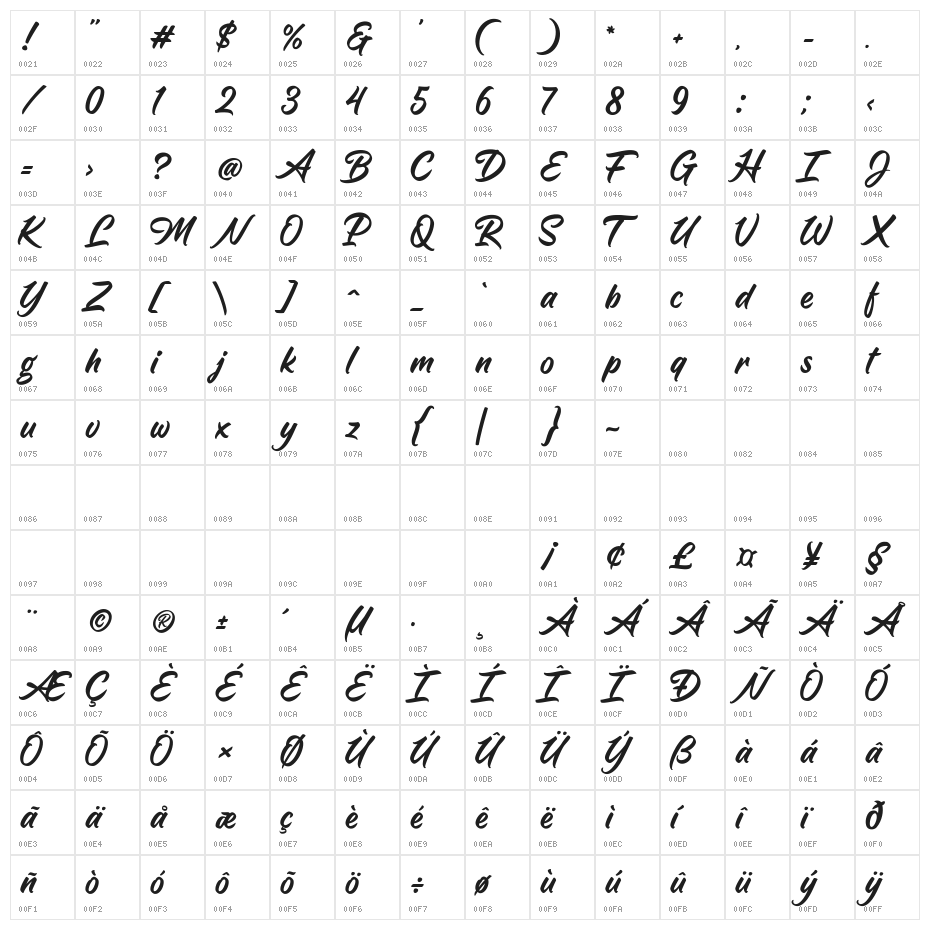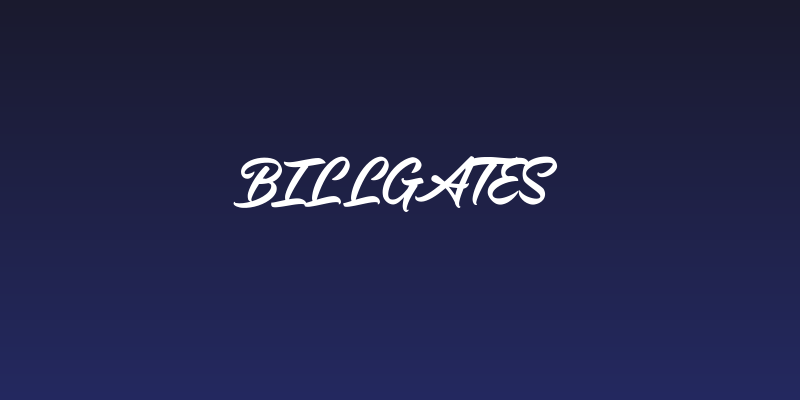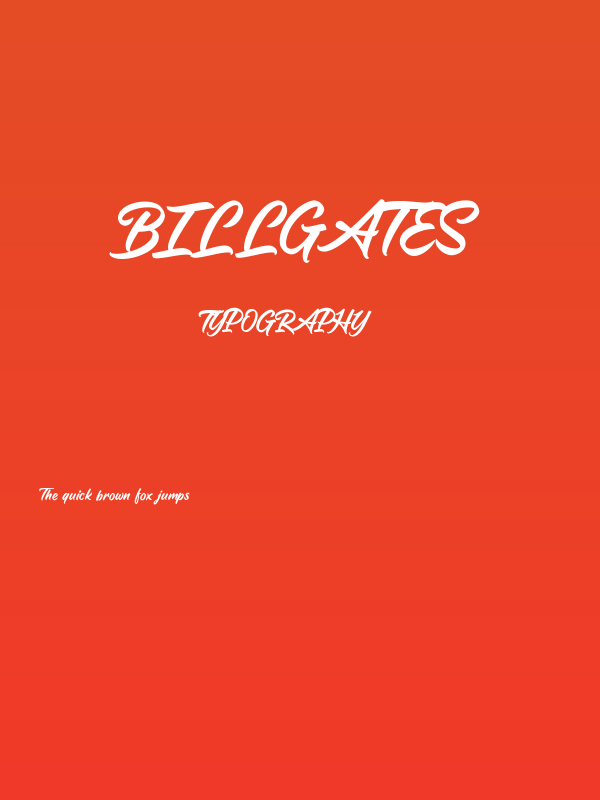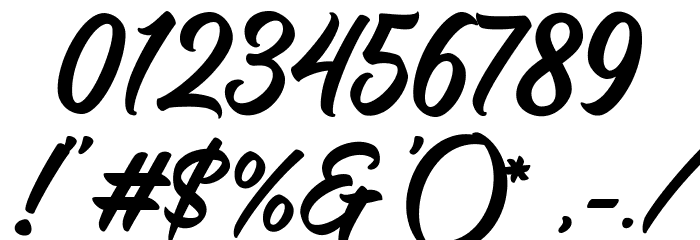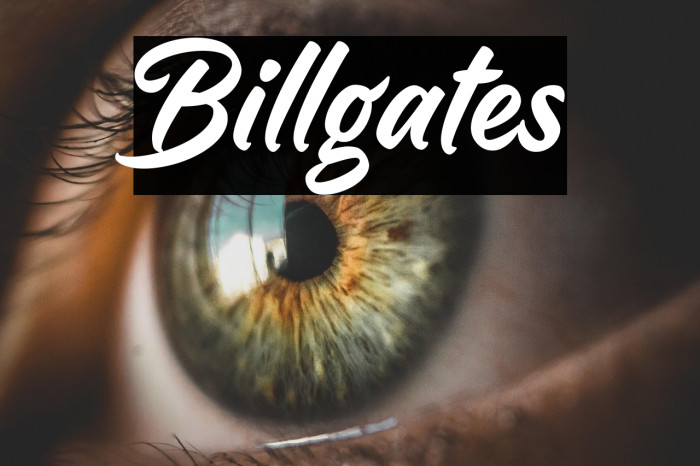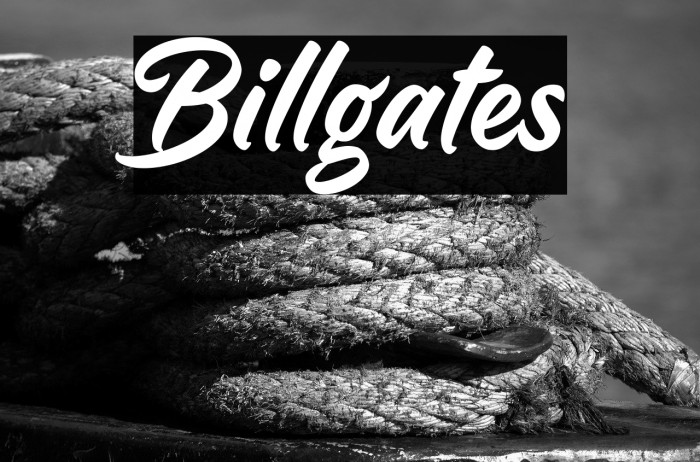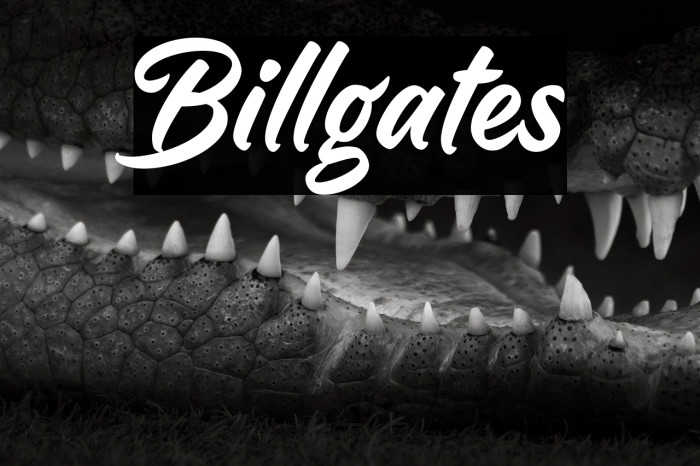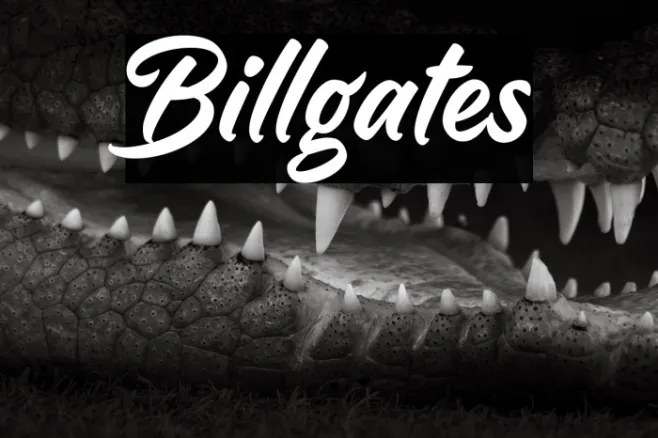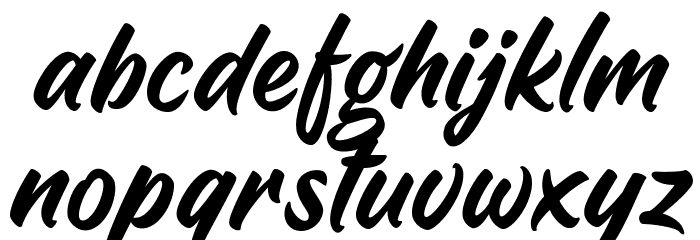
Billgates Font
This font features a bold, cursive style with a dynamic and flowing appearance. The uppercase letters are elegantly slanted, giving a sense of movement and sophistication. The lowercase letters maintain a consistent style, complementing the uppercase with smooth curves and loops. Numbers are bold and clear, ensuring readability while maintaining the overall aesthetic. Special characters are designed to match the cursive flow, integrating seamlessly with the rest of the font. The font's bold strokes and artistic flair make it suitable for creative and expressive projects.
| Proposed Projects | Ideal for branding, invitations, greeting cards, and artistic posters. |